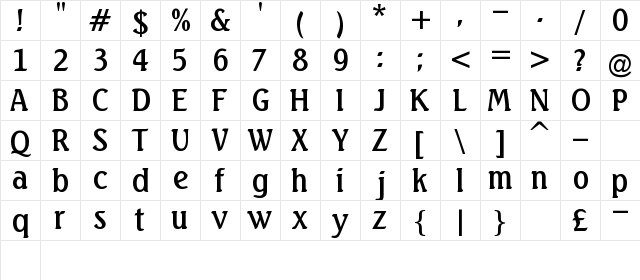
Linda Regular Font Preview
Linda Regular
Design Context for Linda Typeface
Linda offers clean, dependable letterforms without strong stylistic allegiance, making it a practical choice for designers who need flexibility.
Pro Tip: Pair Linda with a font of contrasting weight or personality to build a more expressive typographic hierarchy.